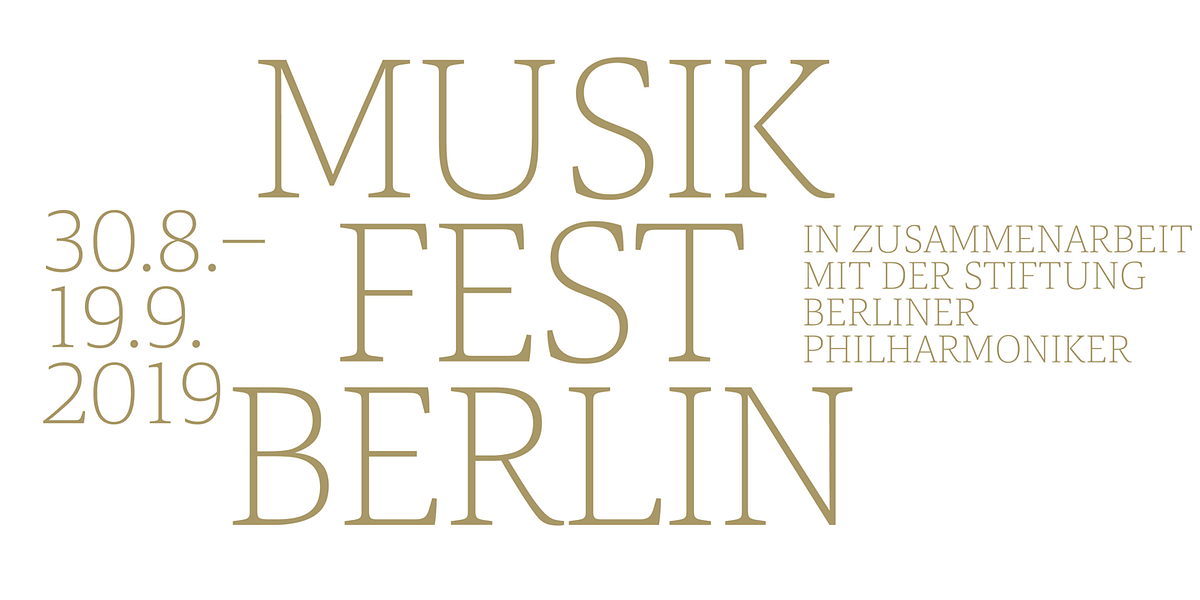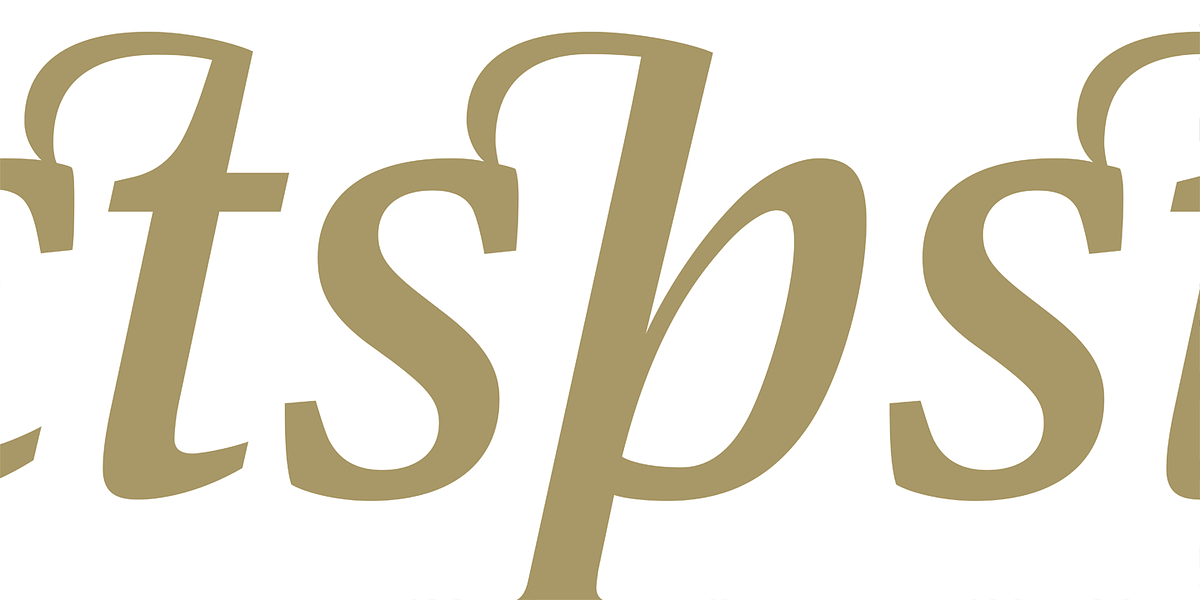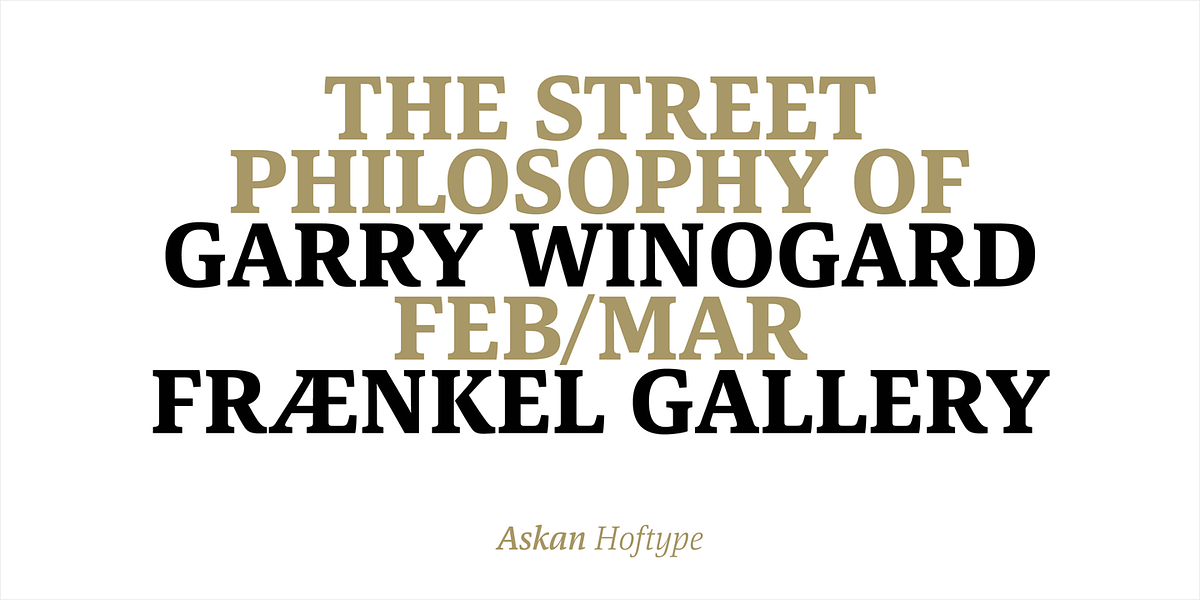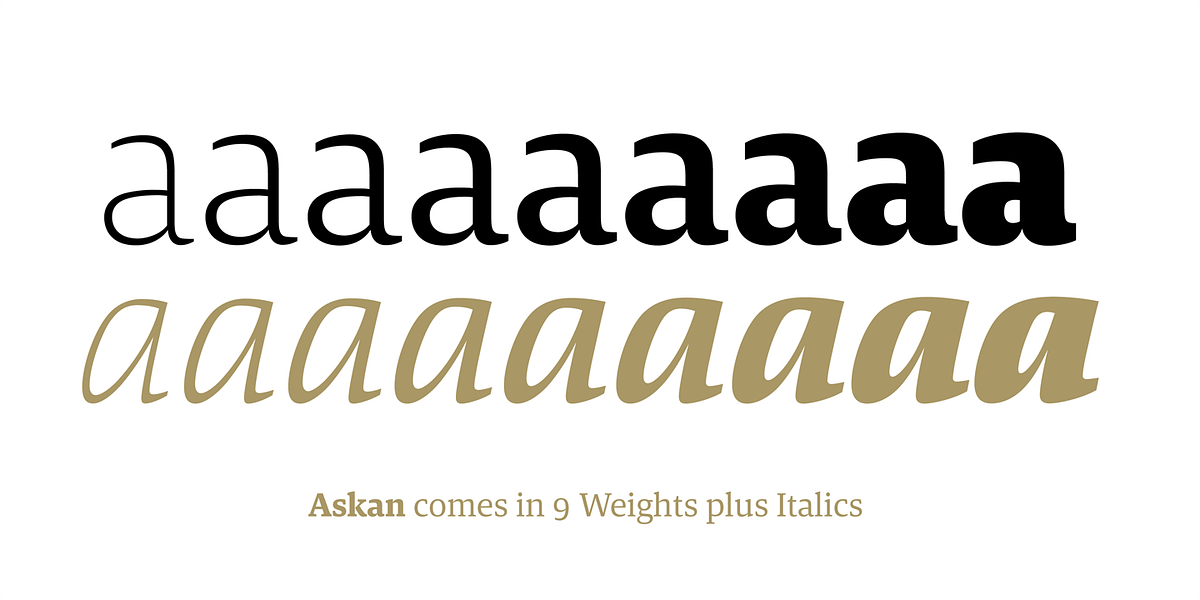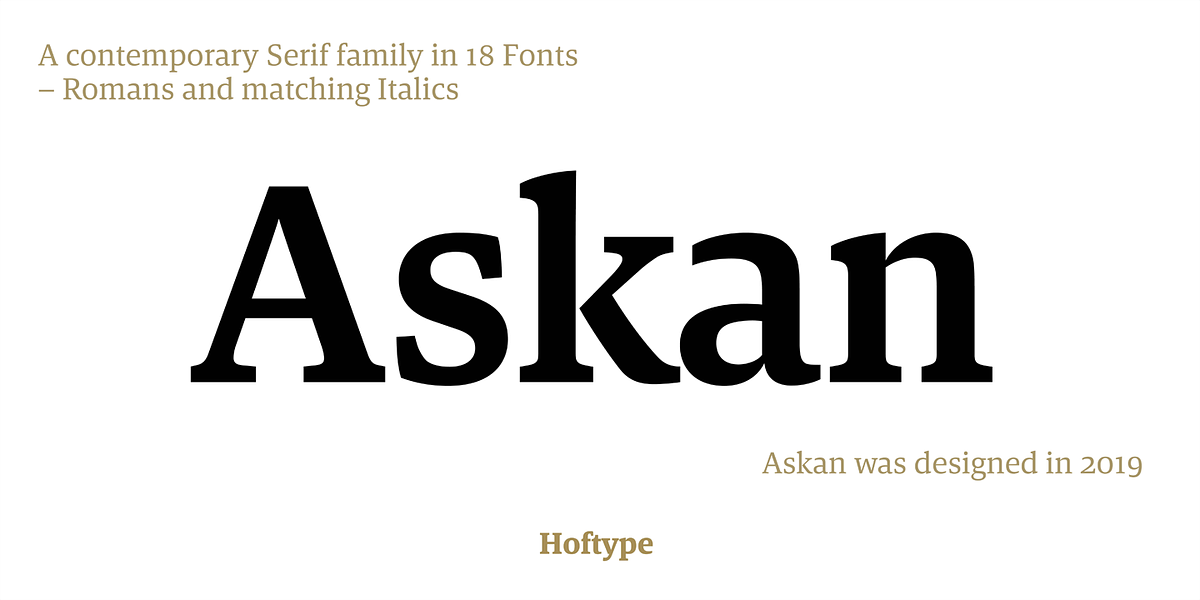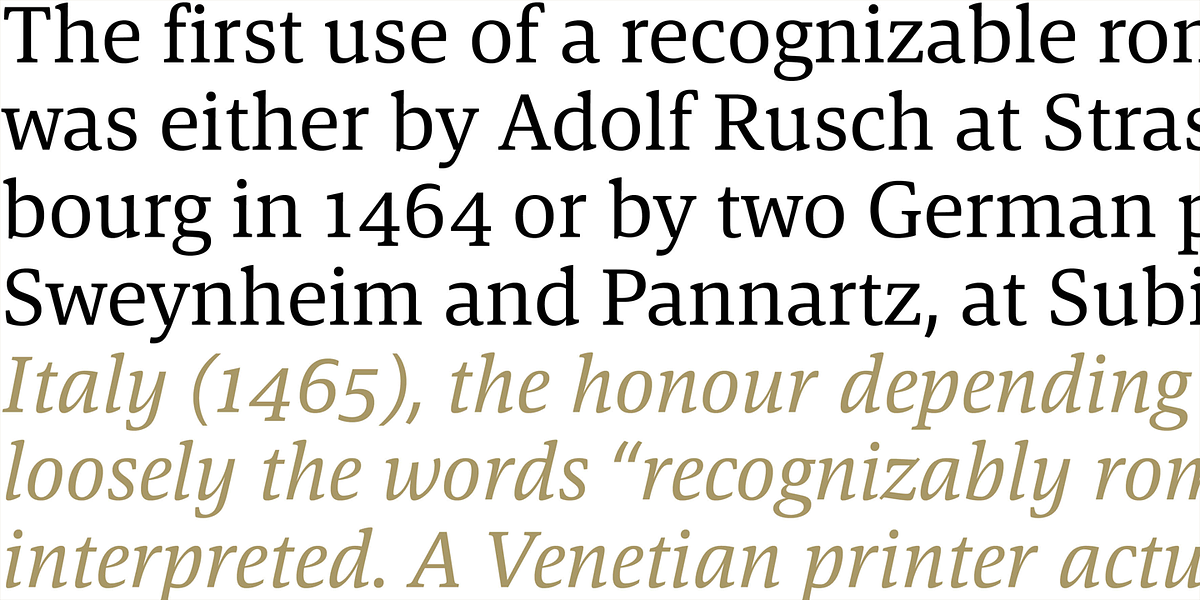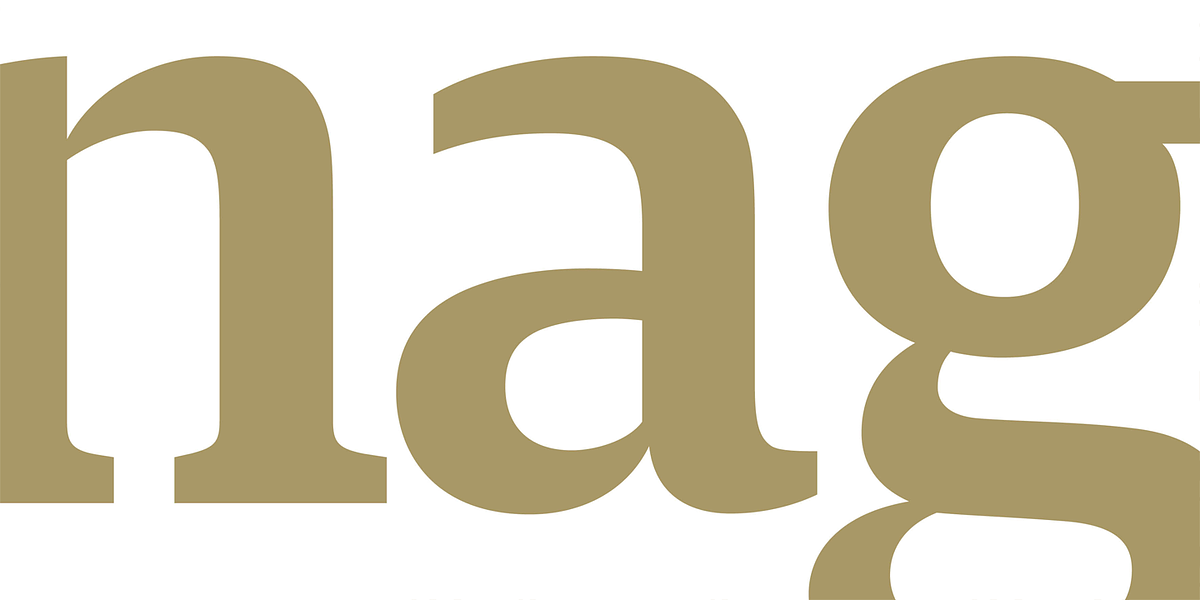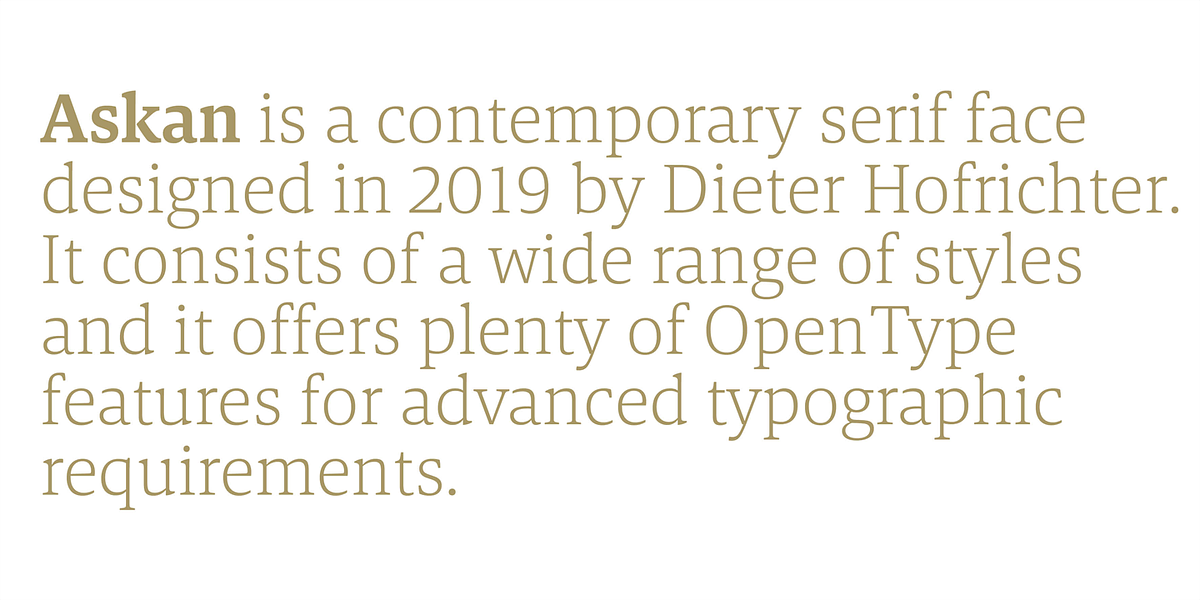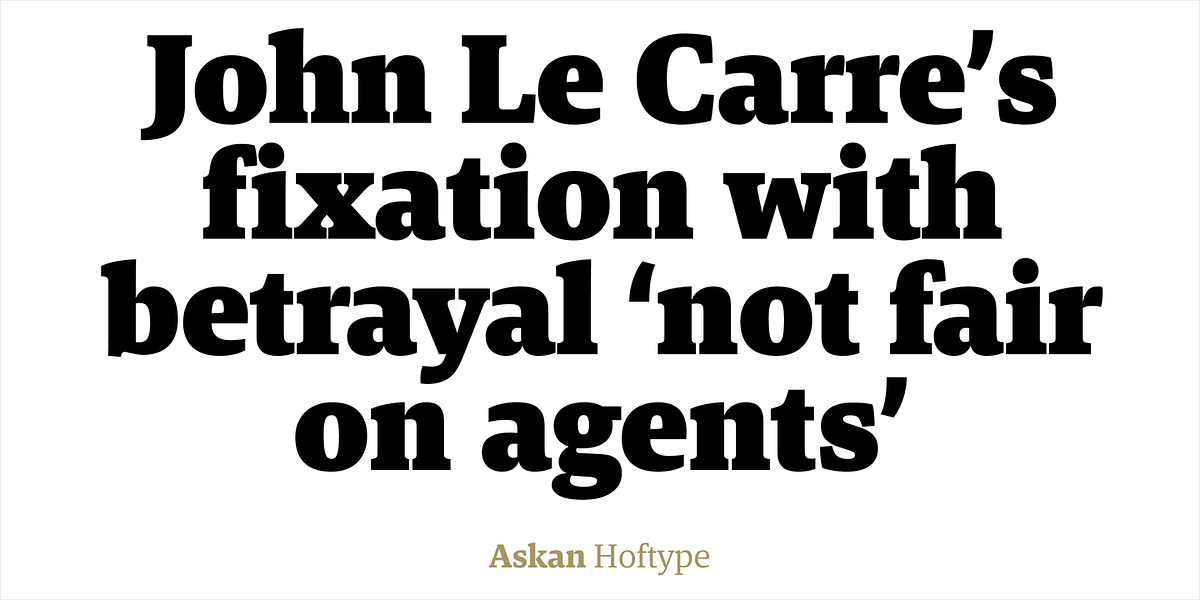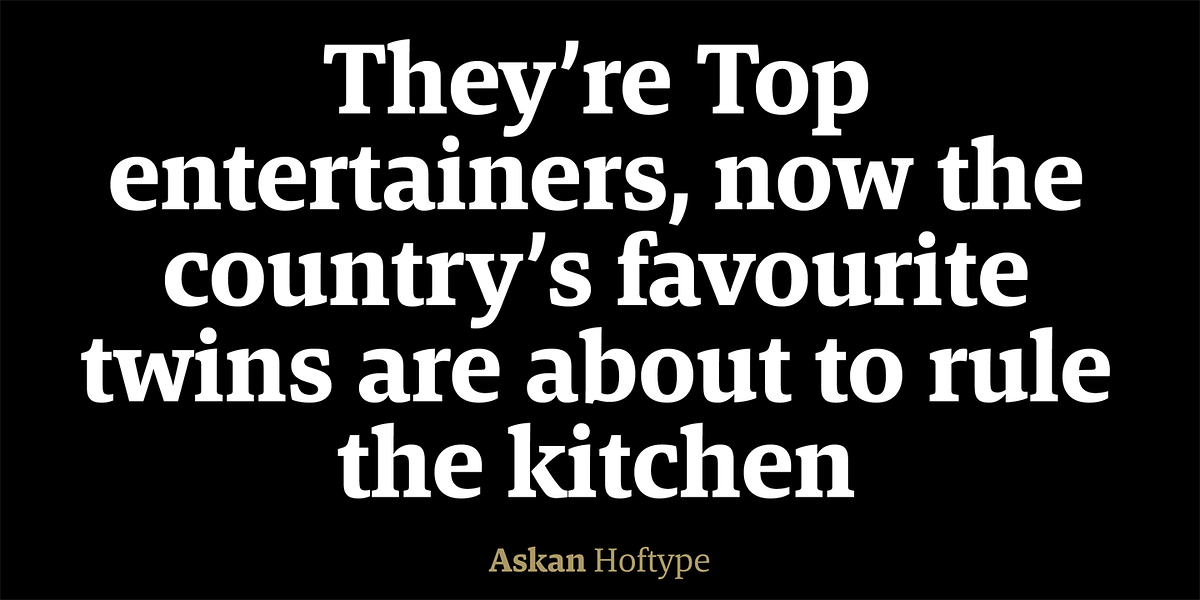
Askan
Askan is a modern serif font designed in 2019. It features a reduced number of formal elements, resulting in a clean and contemporary look. The typeface comes in 18 styles and is well-suited for both text and display applications, including headlines, paragraphs, and posters.